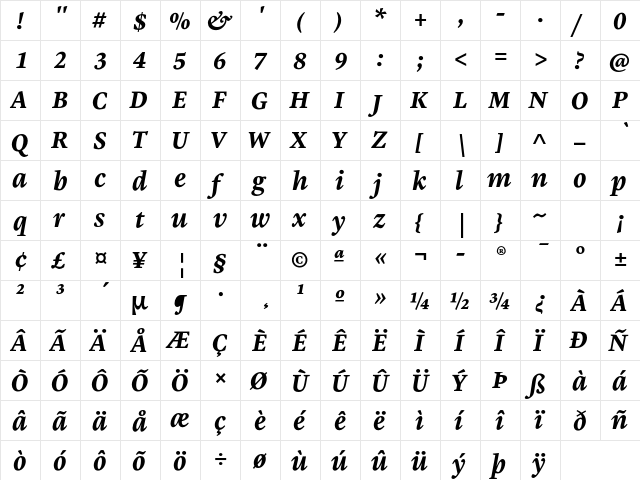
Malabar LT Pro Bold Italic
| Foundry | Linotype GmbH |
| Designer | Dan Reynolds |
Design Context for Malabar LT Pro Typeface
Malabar LT Pro is a composed and adaptable typeface that performs quietly and consistently across a wide range of design contexts. The dynamic lean of this cut emphasises speed and emphasis in any layout. Its bold stroke weight gives it real presence on the page.
Pro Tip: Try Malabar LT Pro for annotation and caption copy alongside an upright companion — the contrast in angle creates a dynamic but ordered typographic system.